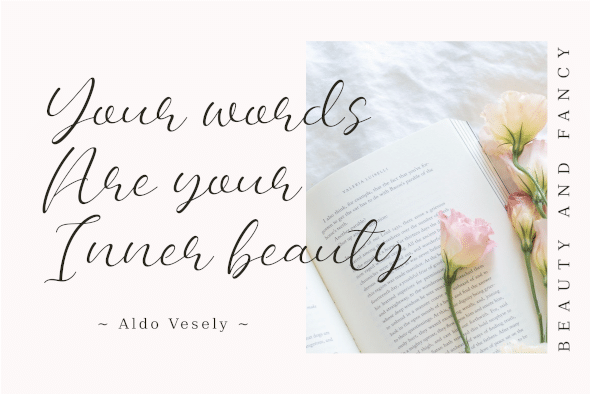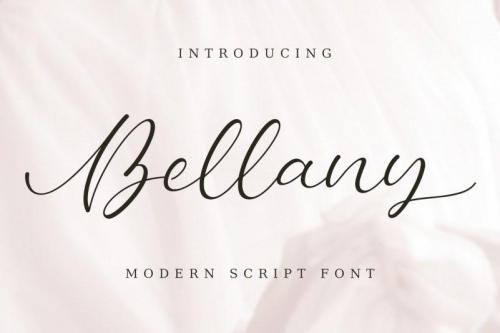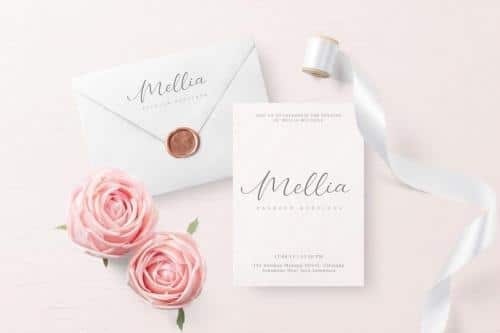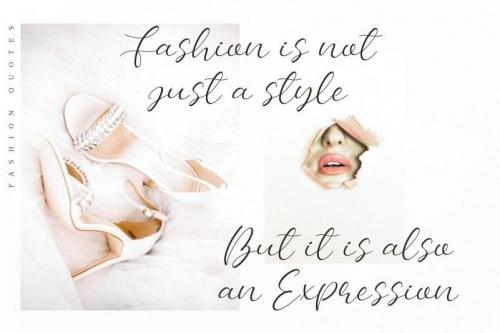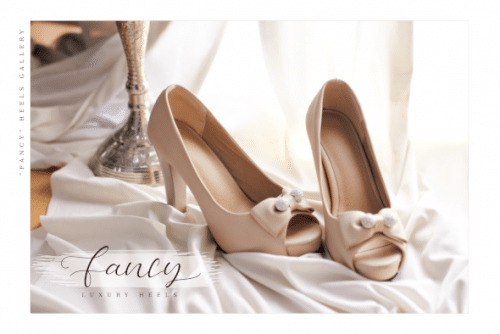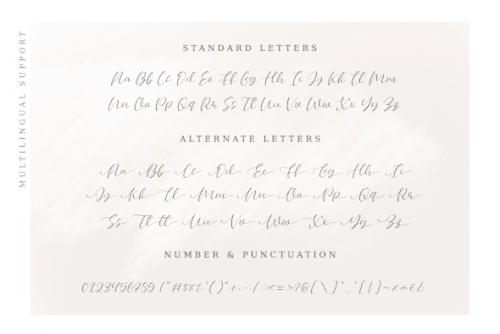
Bellany feels equally charming and elegant. This stunning handwritten font is a stylish homage to classic calligraphy. It will elevate a wide range of design projects to the highest level, be it branding, headings, wedding designs, invitations, signatures, logos, labels, and much more!
Bellany Script is very easy to access because we have given PUA Encoded and divide special characters into opentype features such as ligature and alternate so you can access them with programs that have opentype support.